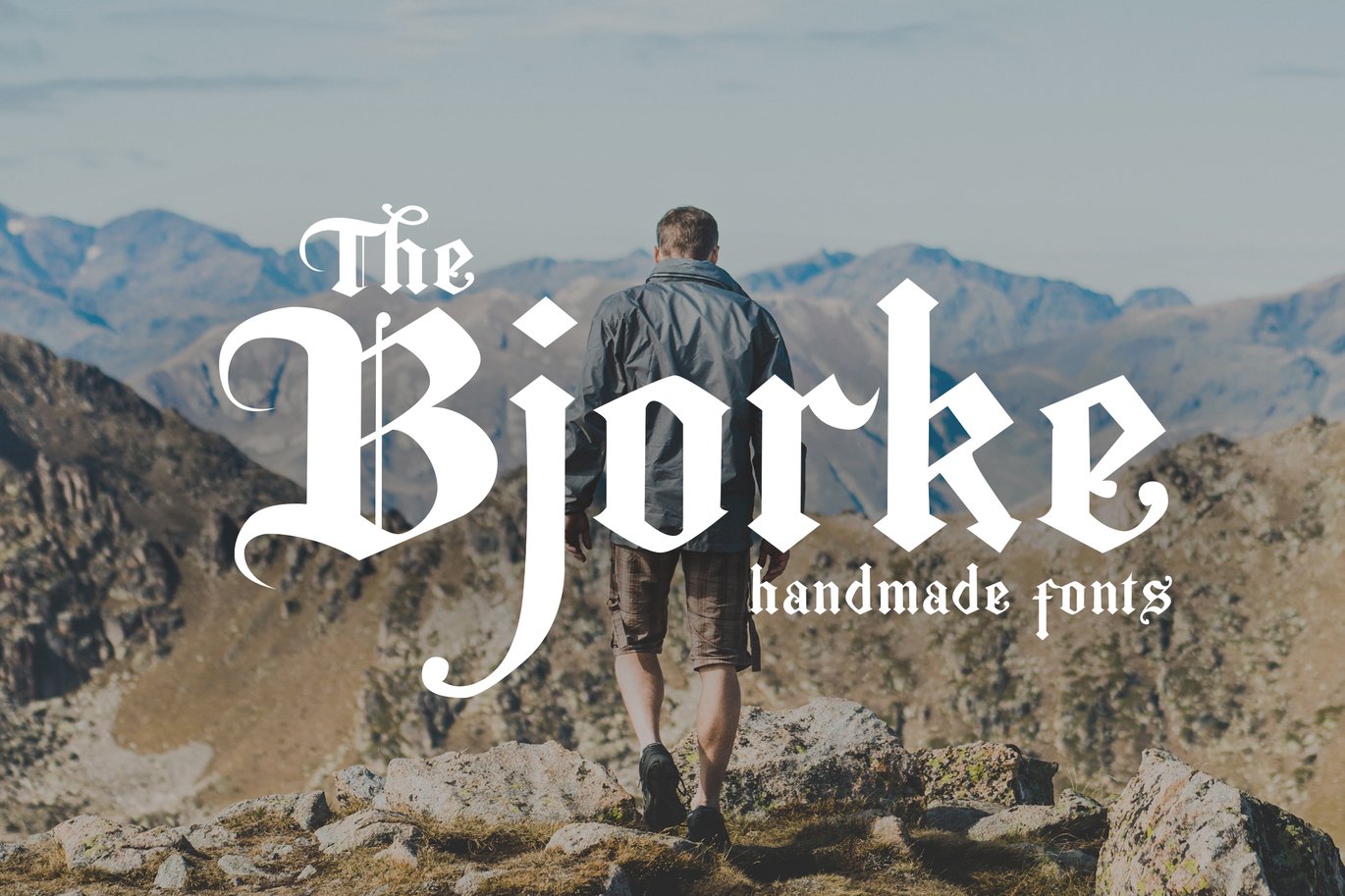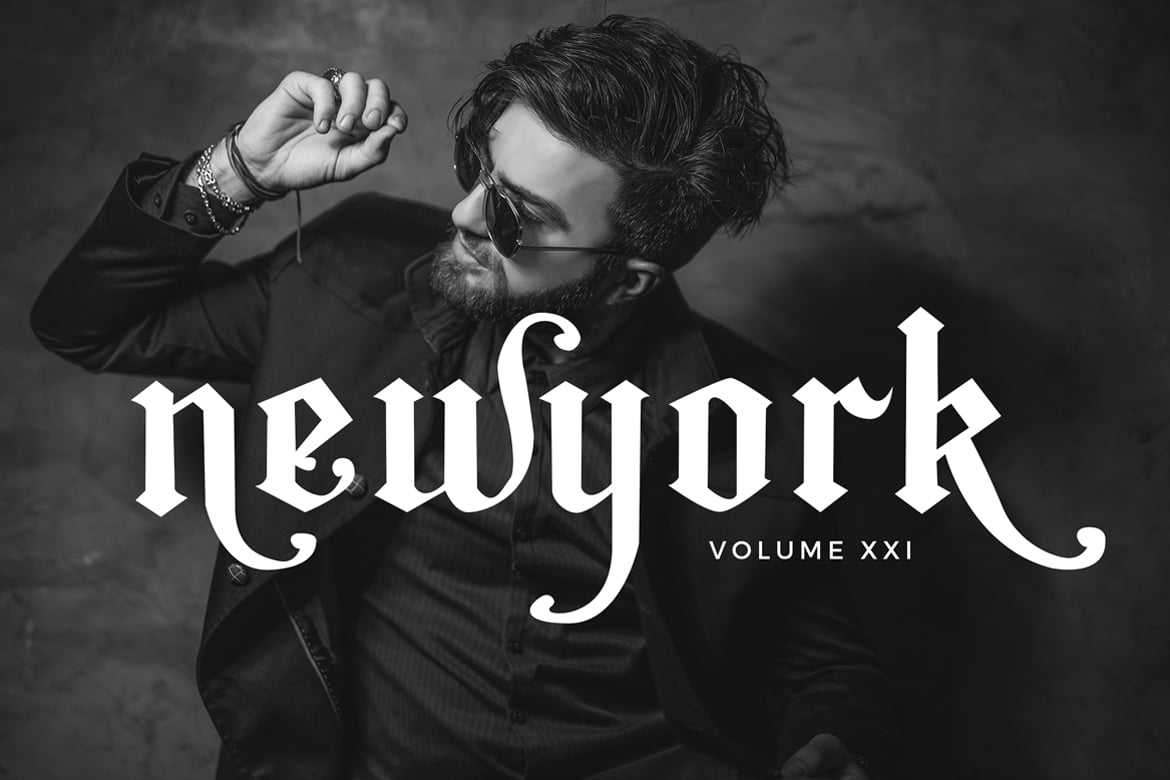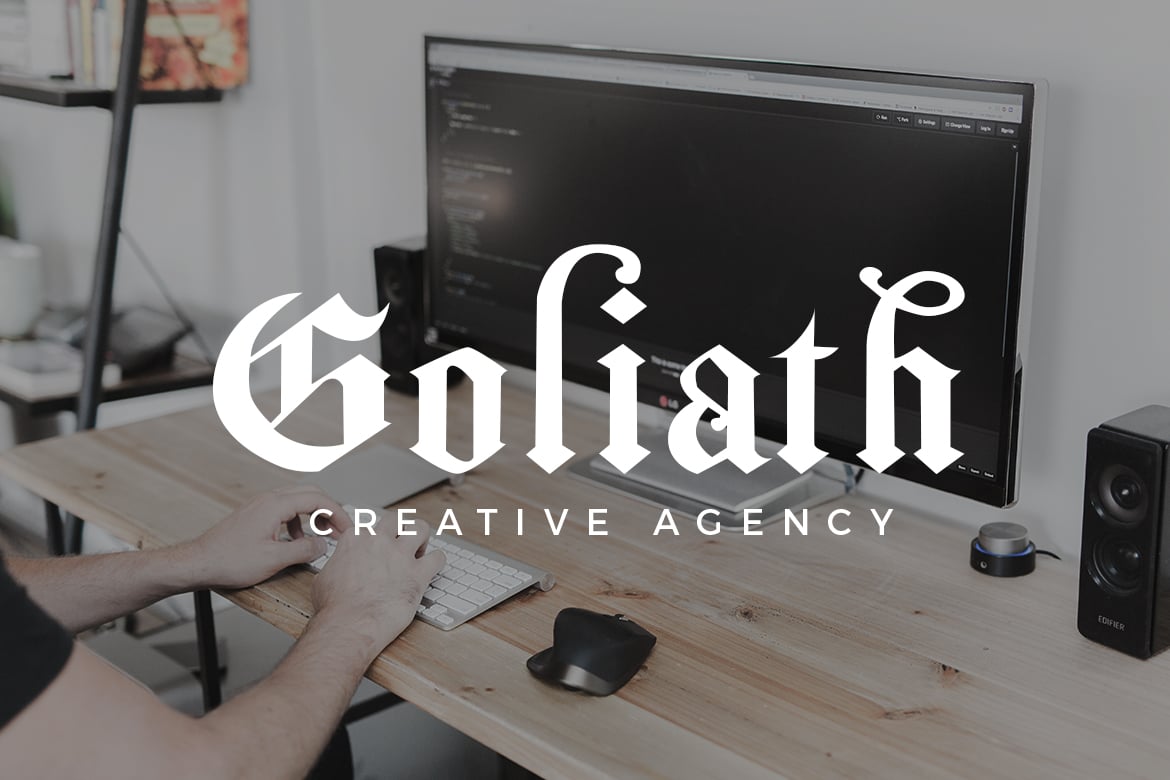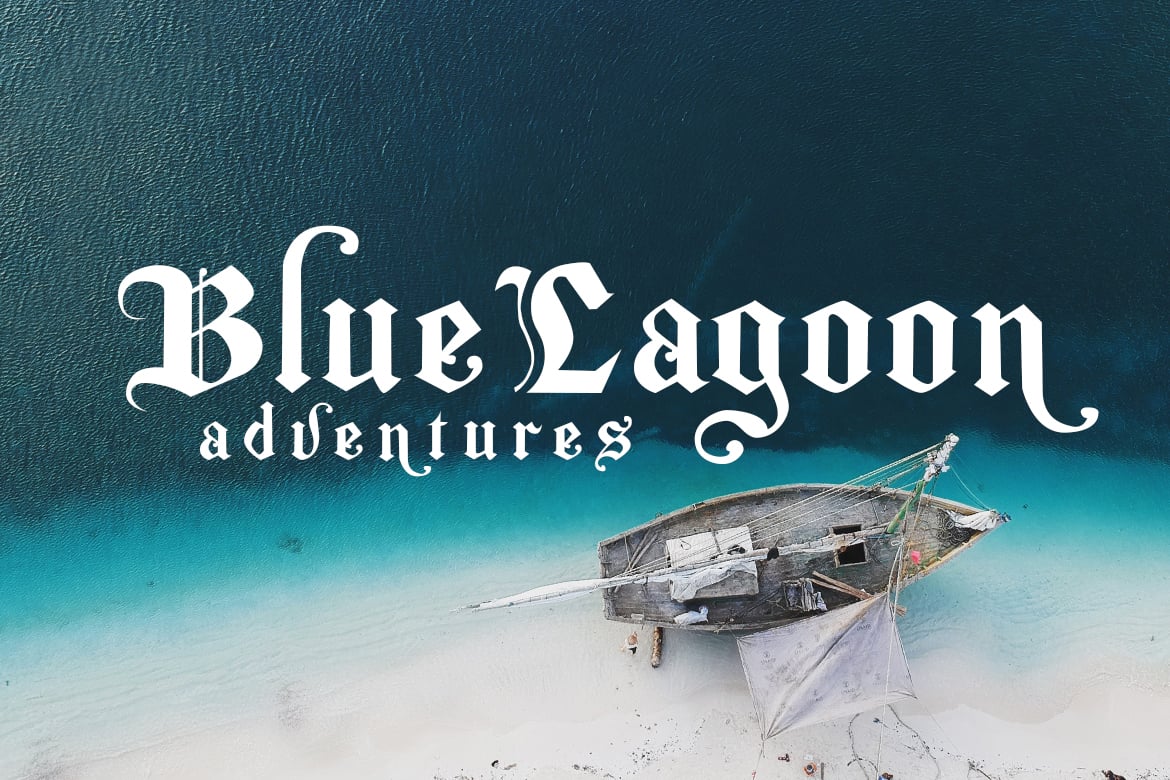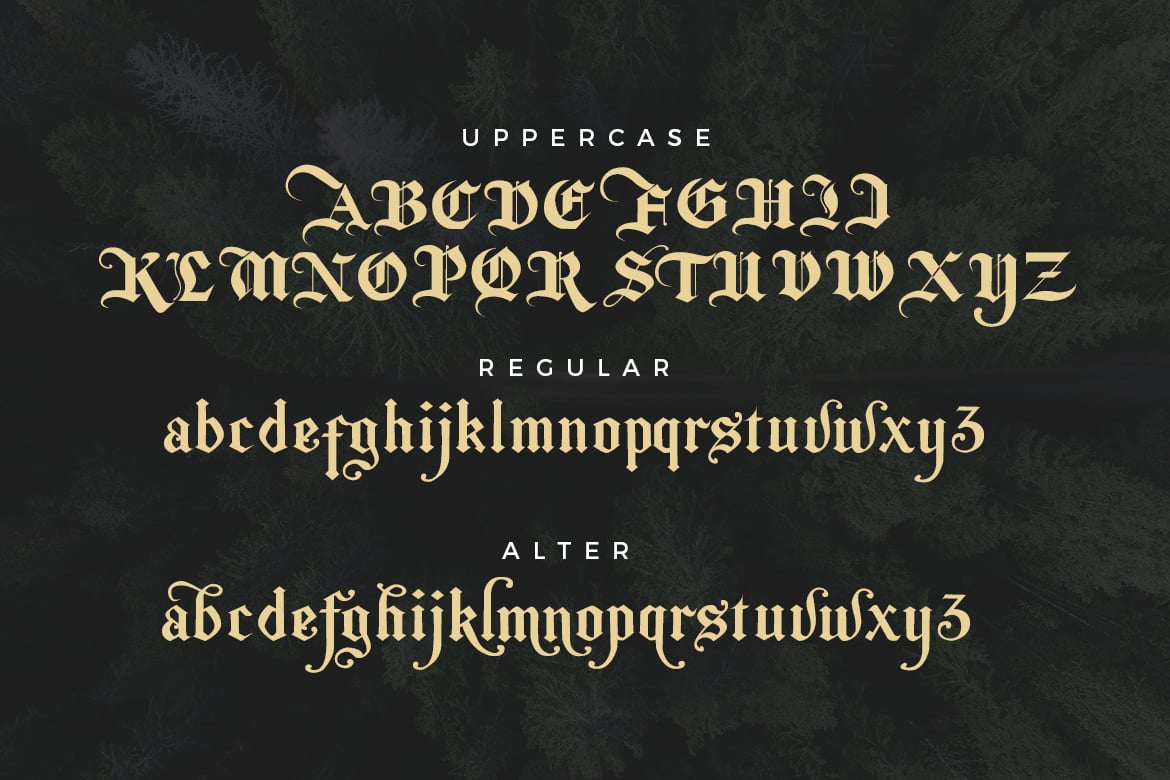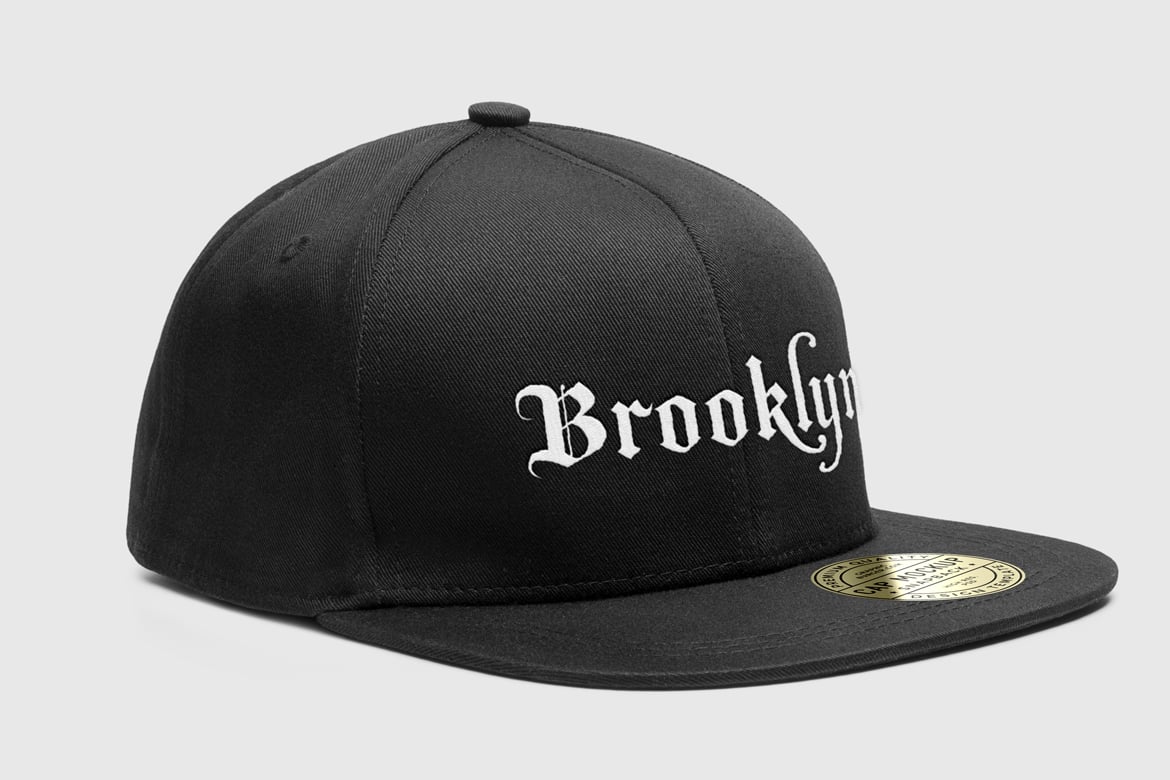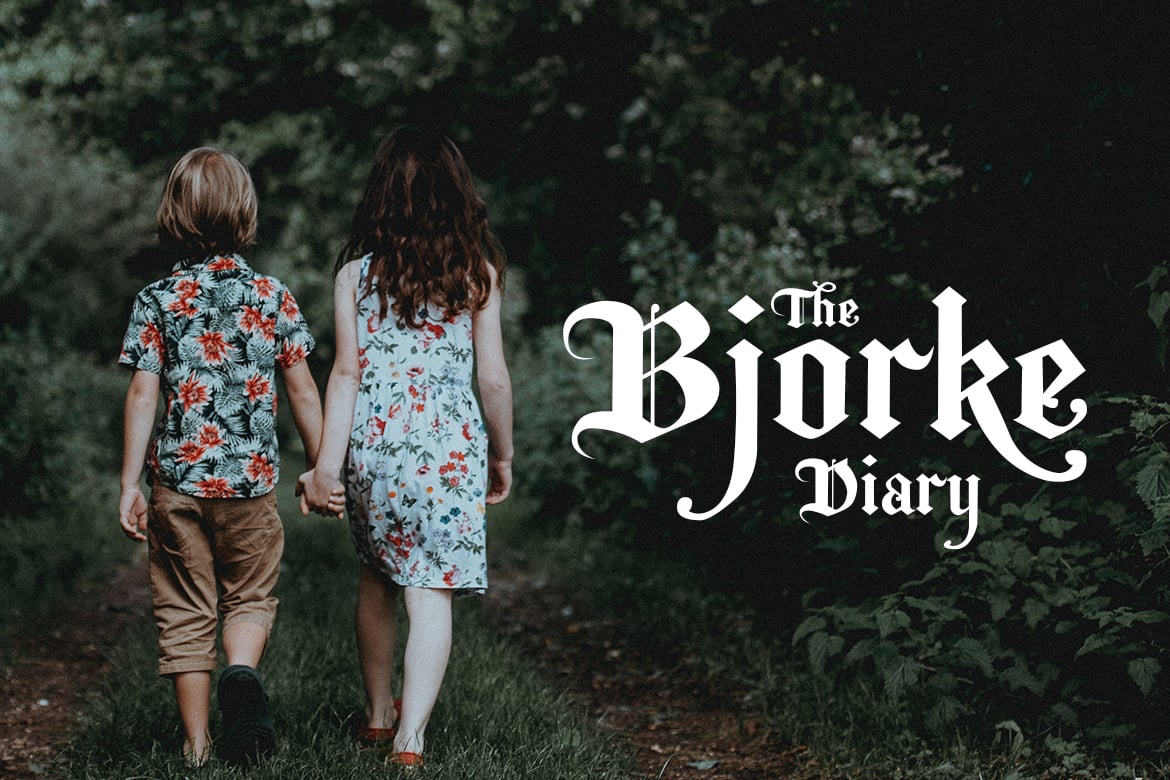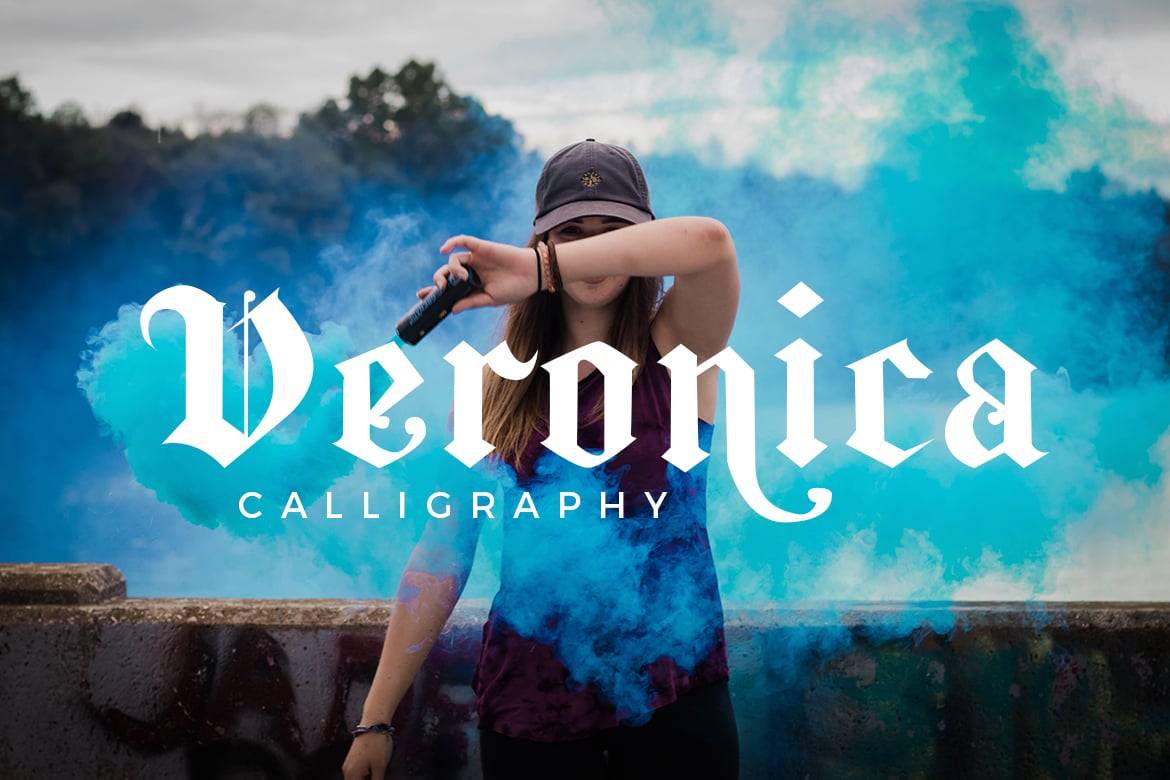
The Bjorke – Handmade Fonts
We Provide You one of the best Stylish Hand Written Script. Best match for logos, header, Titles, Prints & other Creative process possibilities.
Create a Extraordinary Typography / lettering results by using The Bjorke – Handmade Fonts
- 2 styles (regular & alternative)